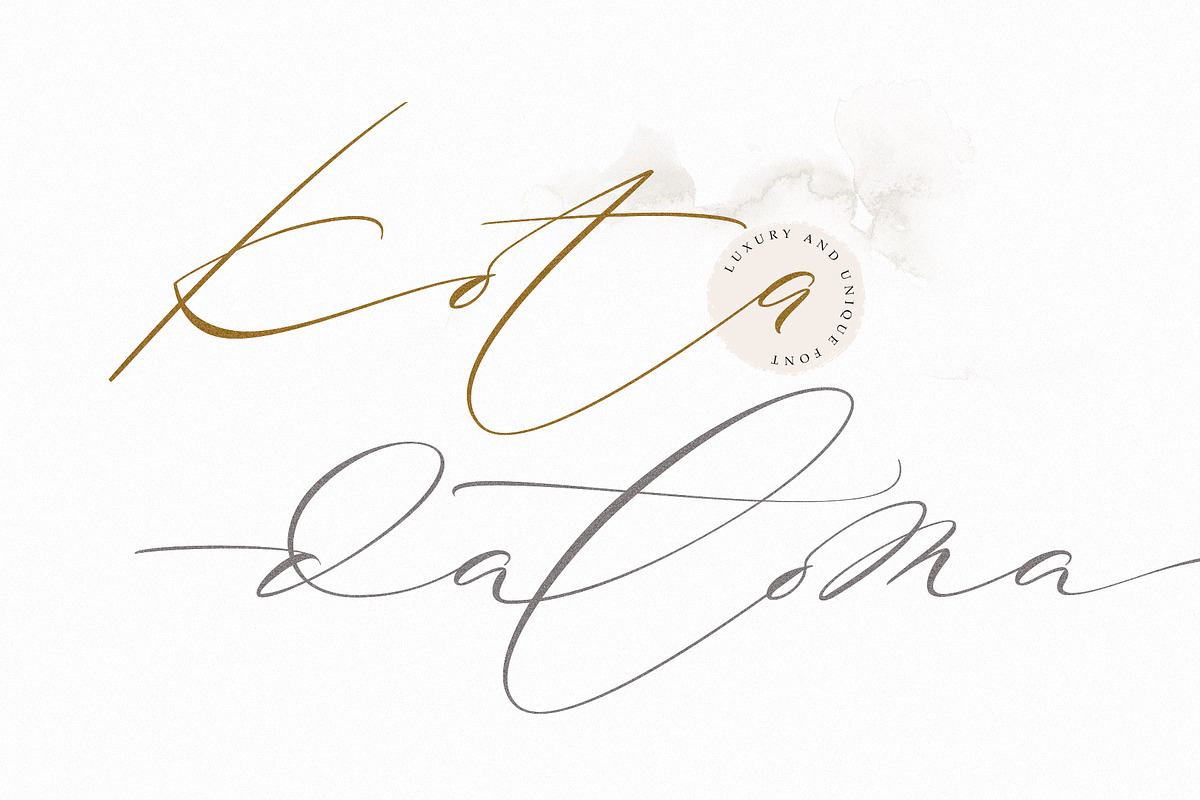
Kota Datoma | Luxury & Unique Font is perfect for luxury brand identities, exclusive high-end packaging, sophisticated fashion labels, premium jewelry branding, upscale restaurant materials, elite hotel communications, luxury real estate marketing, prestigious event invitations, exclusive boutique signage, high-end cosmetics packaging, distinguished corporate presentations, and exceptional luxury communications.
Kota Datoma | Luxury & Unique Font is exciting because it represents the pinnacle of typographic exclusivity through its extraordinary letterforms that combine unprecedented uniqueness with refined luxury, creating typography that exists in a class entirely its own. This exceptional typeface features meticulously crafted character details with distinctive styling that reflects the rarity, sophistication, and exclusive appeal that defines true luxury experiences. The font's unique aesthetic creates instant recognition and emotional connections with discerning audiences who seek genuinely exceptional and one-of-a-kind luxury expressions.
This extraordinary typography solution transforms standard communications into exclusive luxury experiences through its unparalleled unique aesthetic and sophisticated design principles. Kota Datoma | Luxury & Unique Font Free Download enables designers and luxury brands to access the most distinctive premium typography that instantly adds exclusivity, sophistication, and unmatched uniqueness to any creative project. The font's exceptionally crafted unique elements ensure unprecedented character while maintaining excellent readability and distinctive luxury presence.
Luxury brands, exclusive designers, and premium businesses trust Kota Datoma | Luxury & Unique Font for its ability to communicate absolute exclusivity, sophisticated uniqueness, and luxury excellence to elite audiences seeking truly exceptional and one-of-a-kind brand experiences. The typeface's unique construction performs beautifully across various applications, from intimate luxury communications to large-scale exclusive branding campaigns. Its extensive character support includes multilingual capabilities and luxury design elements that enhance sophisticated premium brand presentations.
The design philosophy behind Kota Datoma | Luxury & Unique Font emphasizes the creation of genuinely unique typography that transcends conventional luxury design, establishing new standards for exclusive typographic expression. This uniqueness-focused approach creates a font that feels authentically exceptional while maintaining timeless luxury appeal across different exclusive contexts and premium brand expressions.